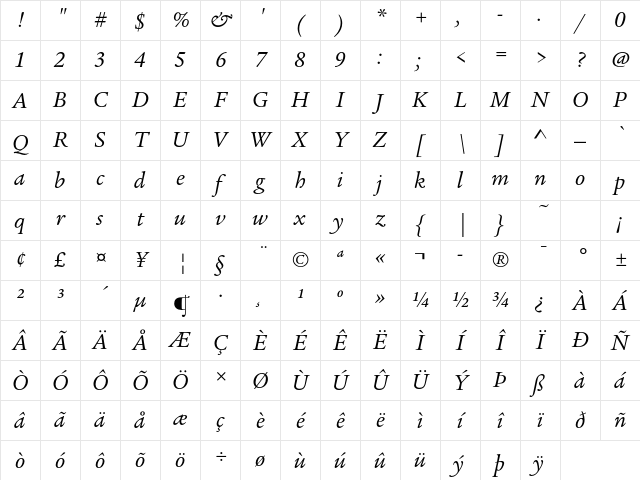
ITC Legacy Serif Std Book Italic
Style: Book Italic
Designer: Ronald Arnholm
Design Context for ITC Legacy Serif Std
ITC Legacy Serif Std carries the refined structure of traditional serif typography, with bracketed terminals and considered proportions that communicate credibility and craft. The slanted form adds forward momentum and visual energy.